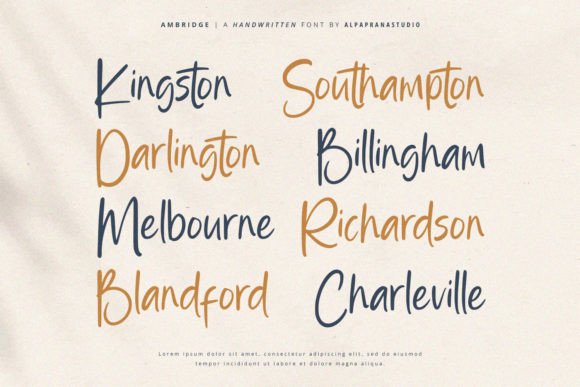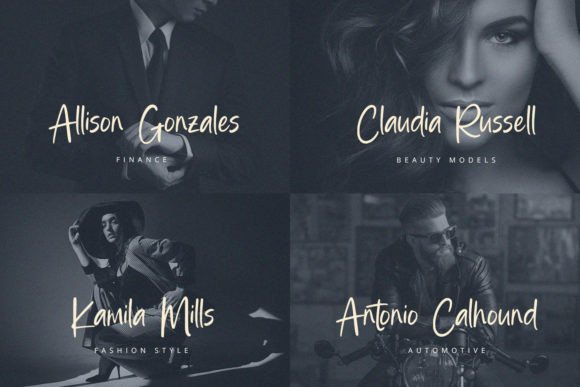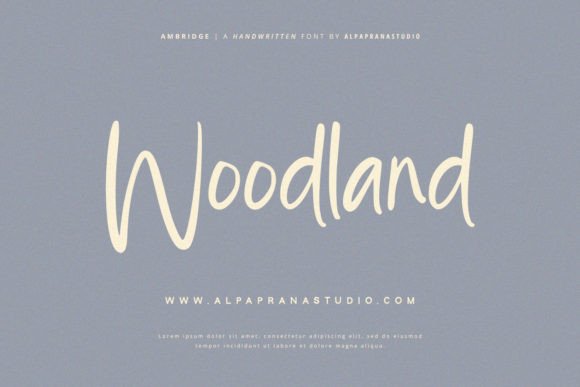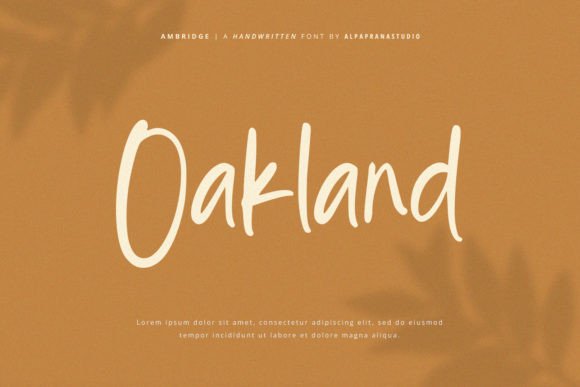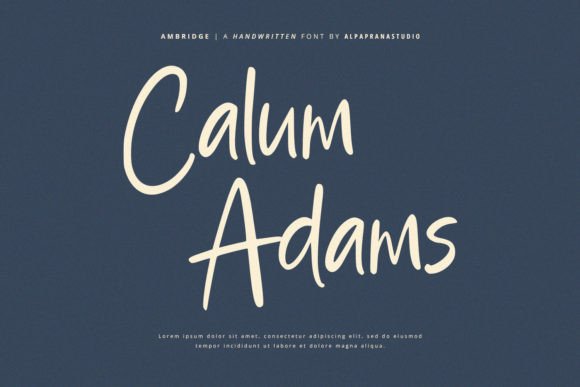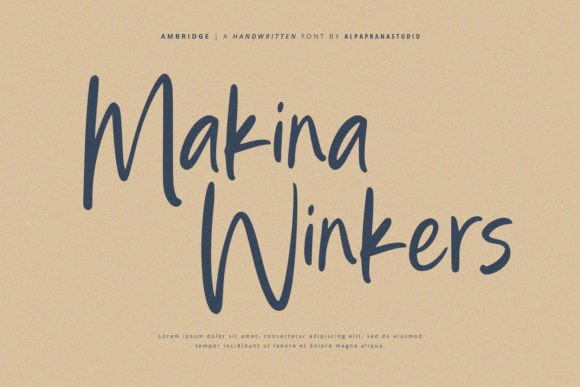
Introducing Ambridge Font: The Perfect Handwritten Display Font for Modern Designs
In the world of typography, fonts play a crucial role in conveying the tone and personality of a brand or design project. For designers and crafters looking for a unique and versatile font, Ambridge Font is an excellent choice. This handwritten display font combines natural and modern feels, making it perfect for a wide range of design applications.
What is Ambridge Font?
Ambridge Font is a carefully crafted handwritten display font that boasts a distinctive and stylish look. Its natural and modern feels make it an ideal choice for designers seeking to add a personal touch to their projects. Whether you’re working on branding, logo design, lettering, or any other design project, Ambridge Font is sure to impress.
Key Features of Ambridge Font
- Handwritten Display Font: Ambridge Font is a handwritten display font that adds a personal and creative touch to any design project.
- Natural and Modern Feels: This font combines natural and modern elements, making it perfect for designers seeking a unique and stylish look.
- Versatile: Ambridge Font can be used for a wide range of design applications, including branding, logo design, lettering, logotype, clothing, posters, magazines, packaging, and more.
Ambridge Font is an excellent choice for designers and crafters looking to add a personal touch to their projects. Its unique and stylish look makes it perfect for:
- Branding: Create a memorable brand identity with Ambridge Font.
- Logo Design: Design a stunning logo that stands out from the crowd.
- Lettering: Add a creative touch to your lettering projects.
- Logotype: Create a unique logotype that reflects your brand’s personality.
- Clothing: Design stylish and eye-catching clothing with Ambridge Font.
- Posters: Create stunning posters that grab attention.
- Magazine: Add a touch of elegance to your magazine designs.
- Packaging: Design beautiful and functional packaging with Ambridge Font.
- Shopping Bags: Create stylish and eco-friendly shopping bags.
- T-Shirts: Design stunning t-shirts that make a statement.
- Book Covers: Create eye-catching book covers that stand out.
- Photography: Add a creative touch to your photography projects.
- Special Events: Design stunning materials for special events, such as weddings, conferences, and more.
Why Choose Ambridge Font?
With so many fonts available, why choose Ambridge Font? Here are just a few reasons:
- Unique and Stylish: Ambridge Font offers a unique and stylish look that’s sure to impress.
- Versatile: This font can be used for a wide range of design applications.
- Easy to Read: Ambridge Font is easy to read, making it perfect for body text and headlines.
- High-Quality: This font is crafted with high-quality and attention to detail.
In conclusion, Ambridge Font is an excellent choice for designers and crafters looking for a unique and versatile handwritten display font. Its natural and modern feels make it perfect for a wide range of design applications, from branding and logo design to clothing and packaging. With its stylish and eye-catching look, Ambridge Font is sure to take your designs to the next level.